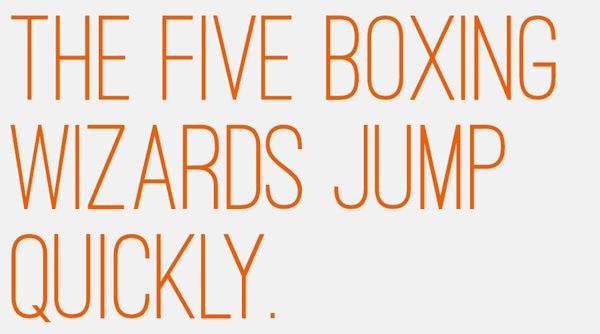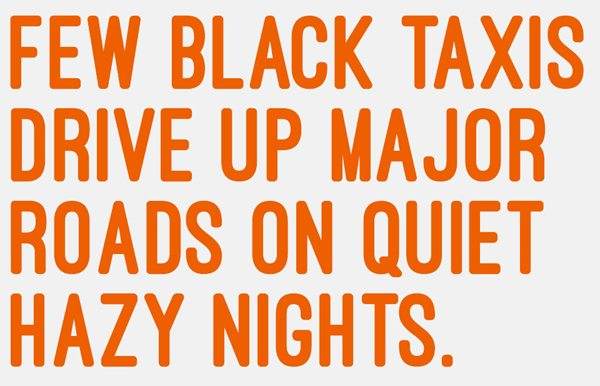
Free Font of The Day #91 – Ostrich Sans Font
Ostrich Sans Font
The new style is a thicker, rounder version of OS which is called Heavy. It has more language support than ever and is all caps much like the rest of OS. Medium is the original style, but with fixed characters(that “y” especially), kerning adjustments, etc.